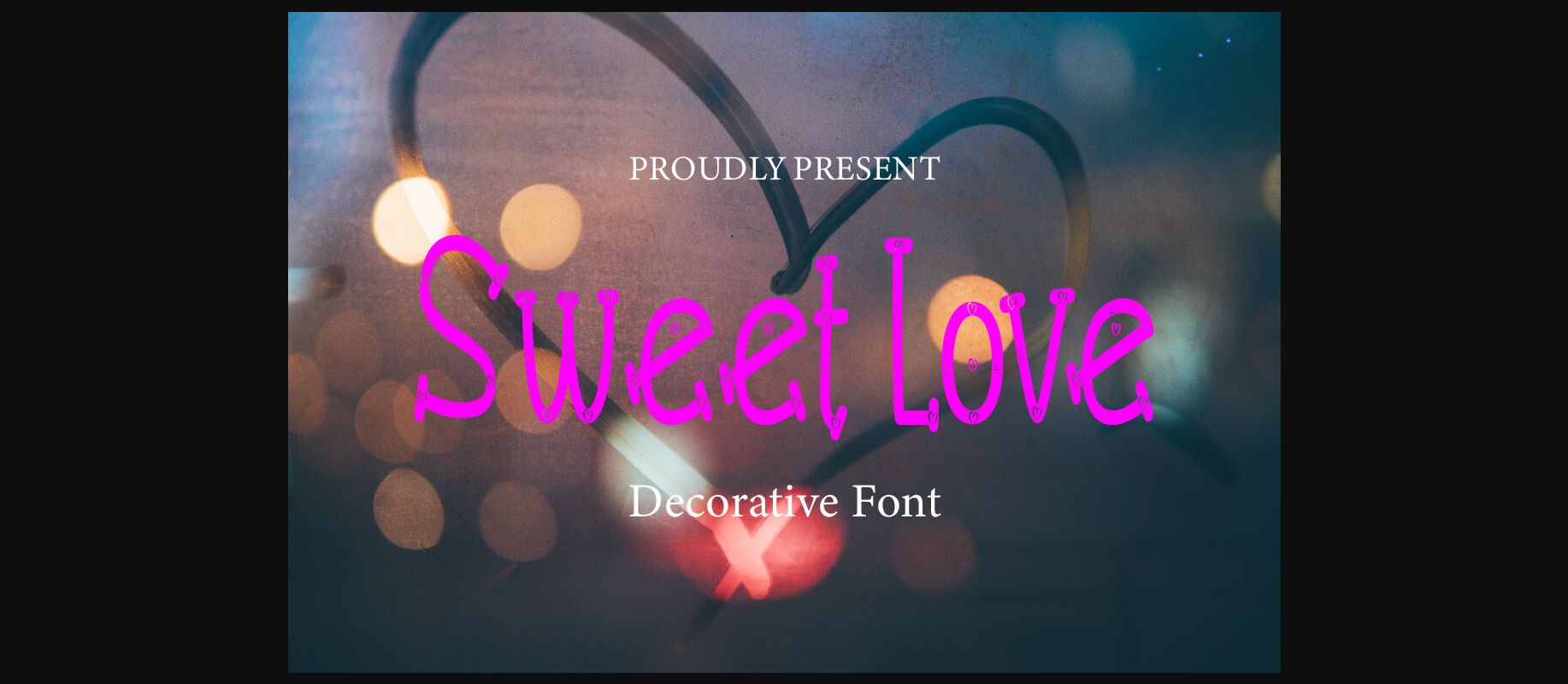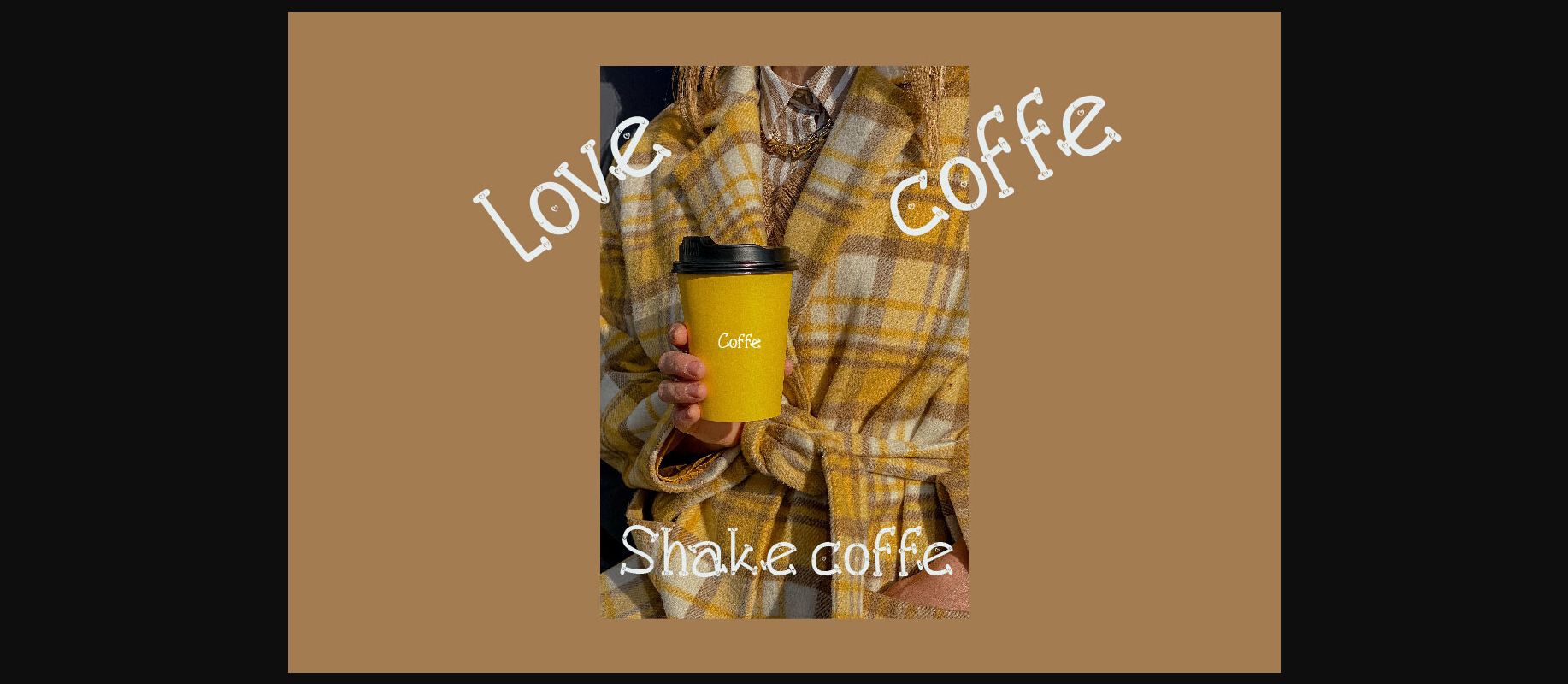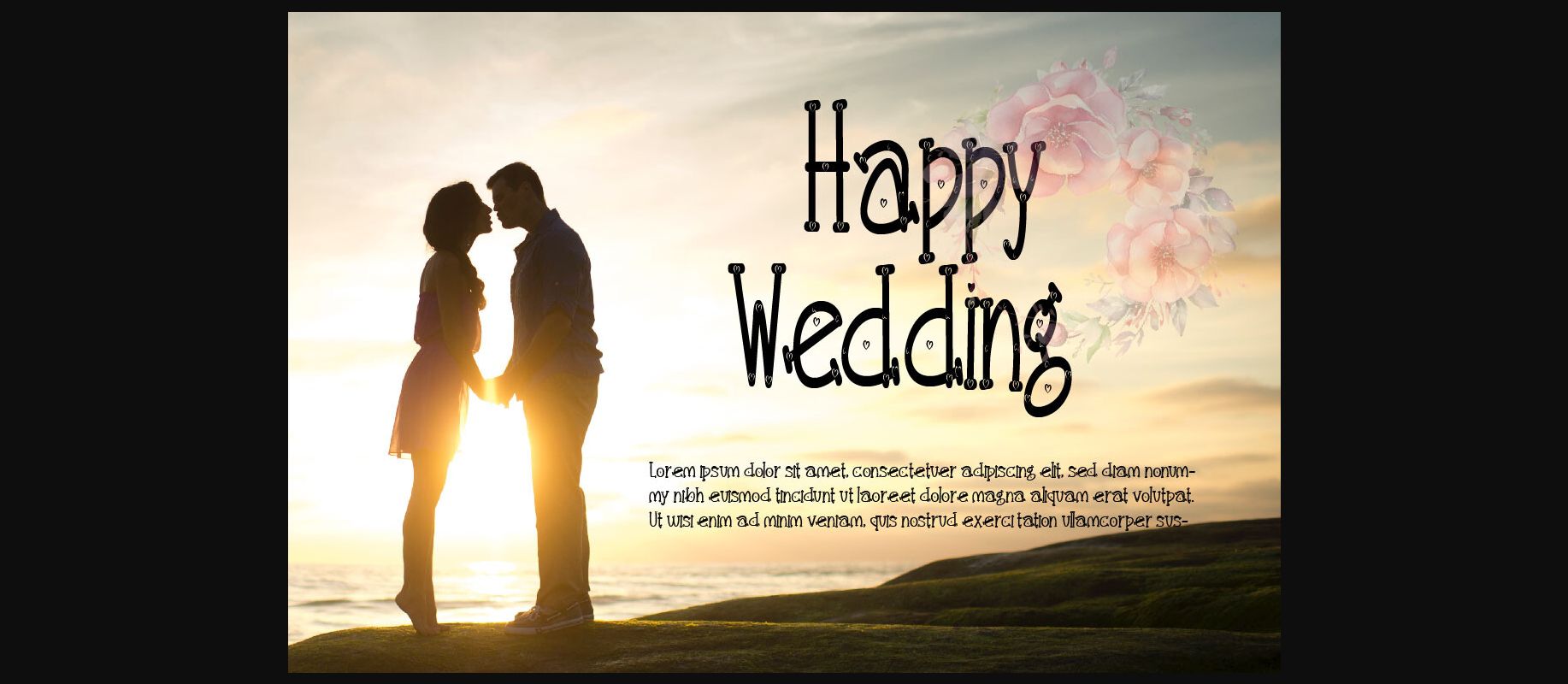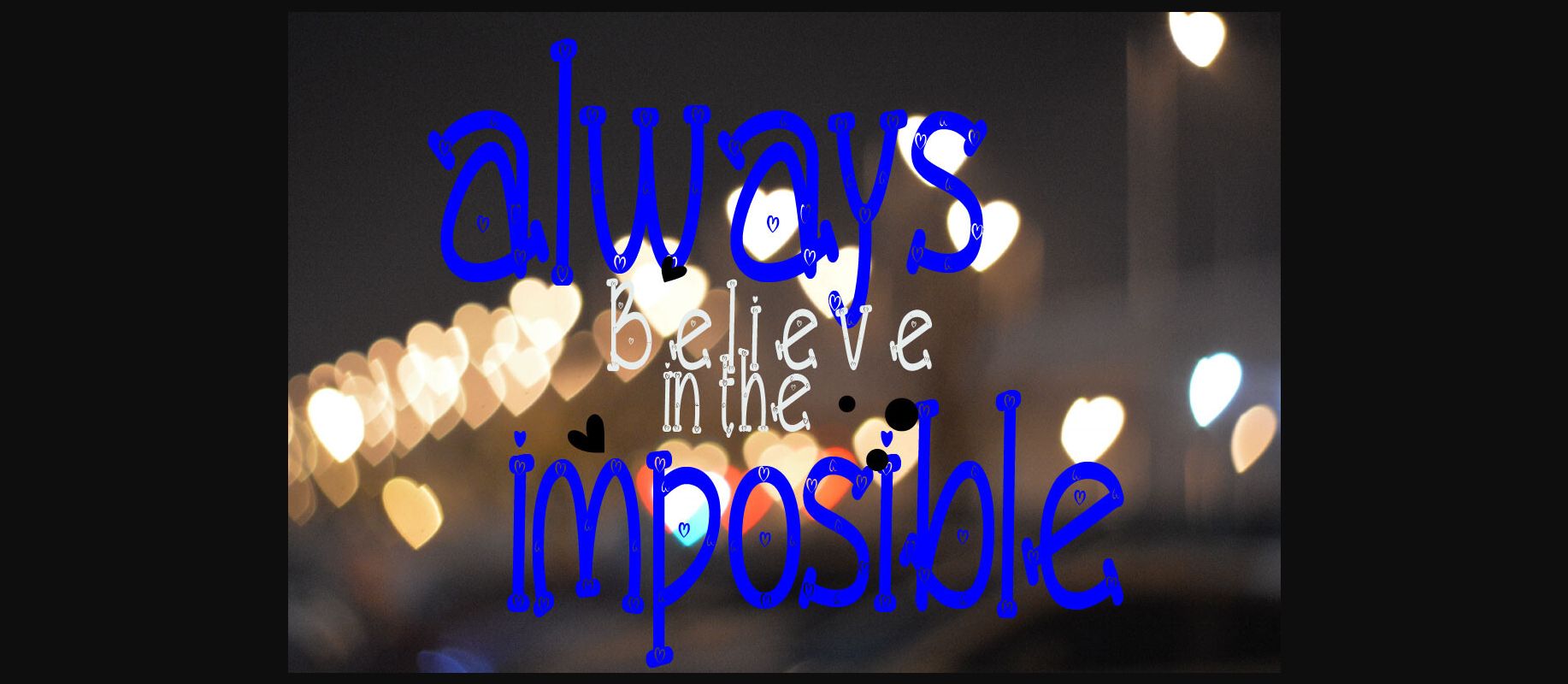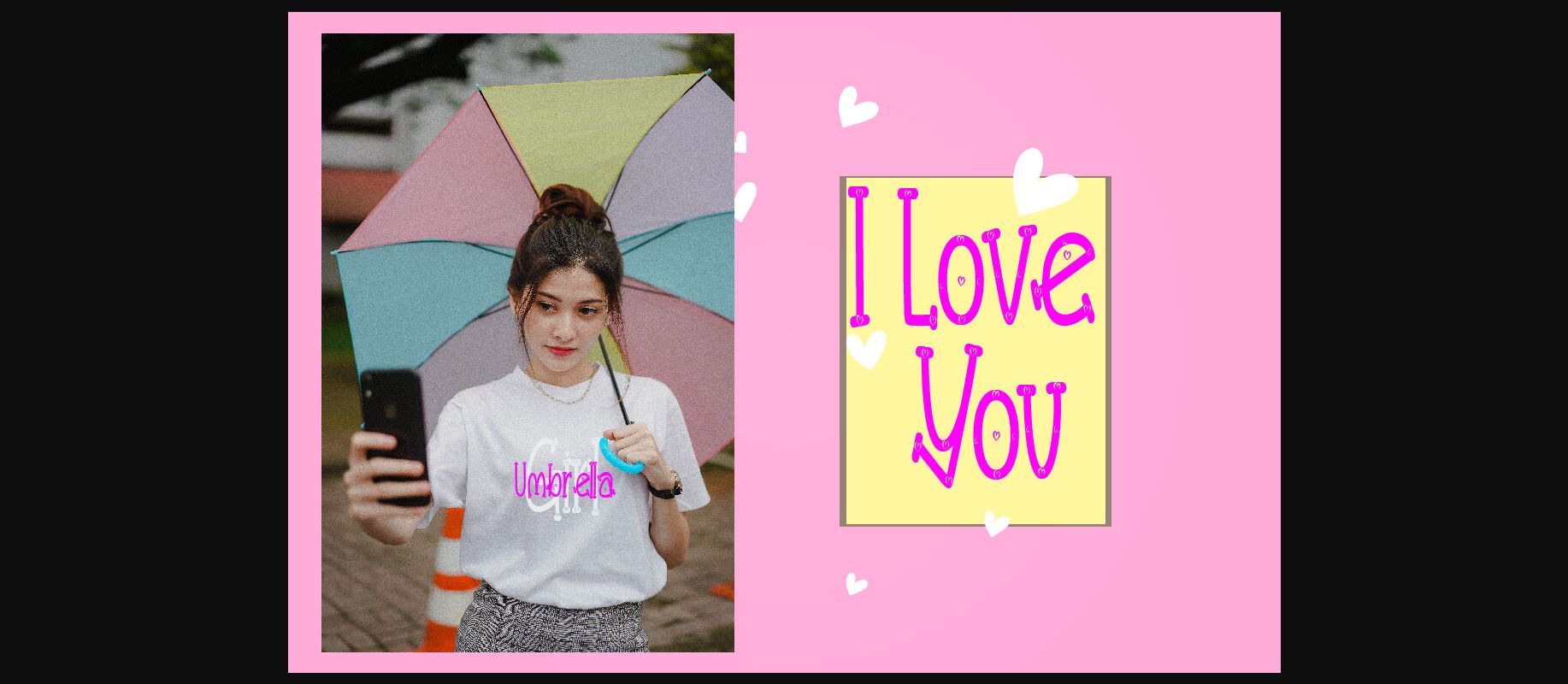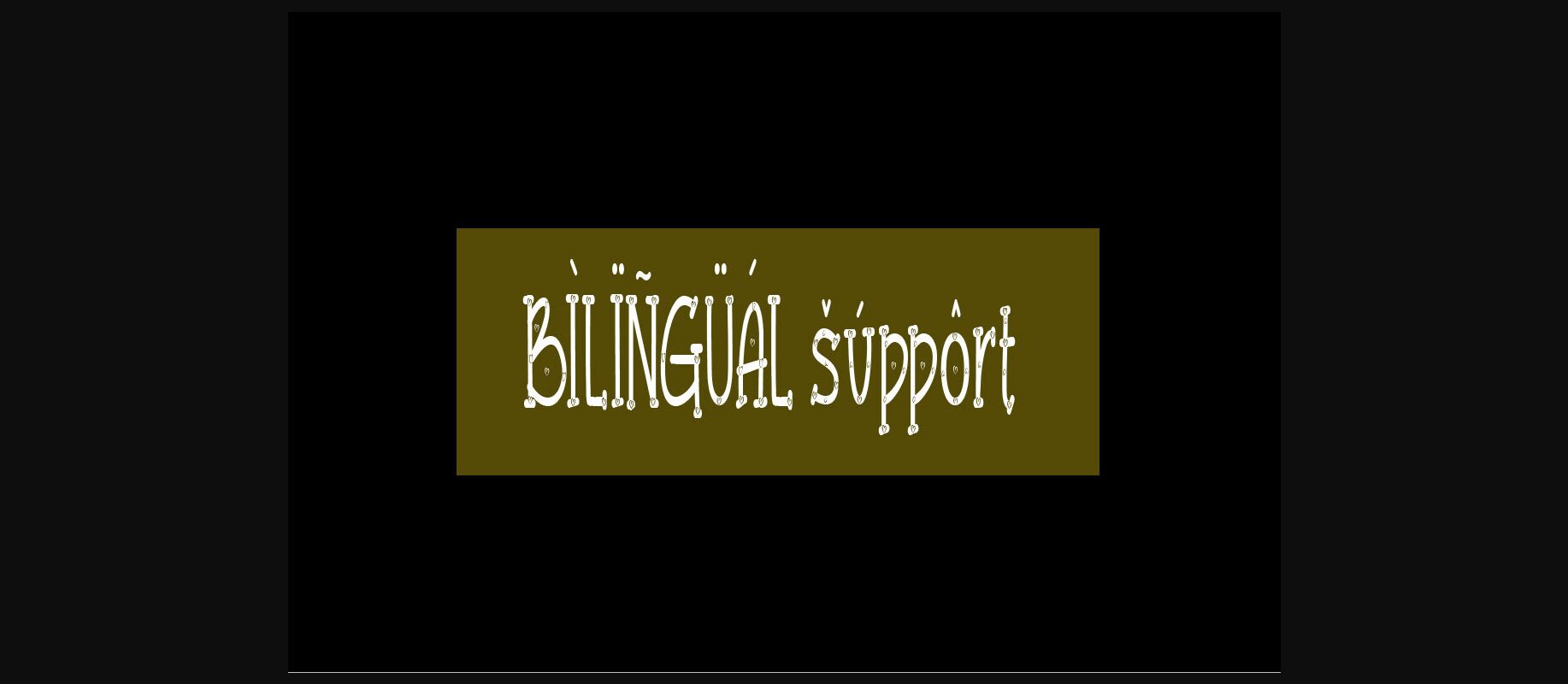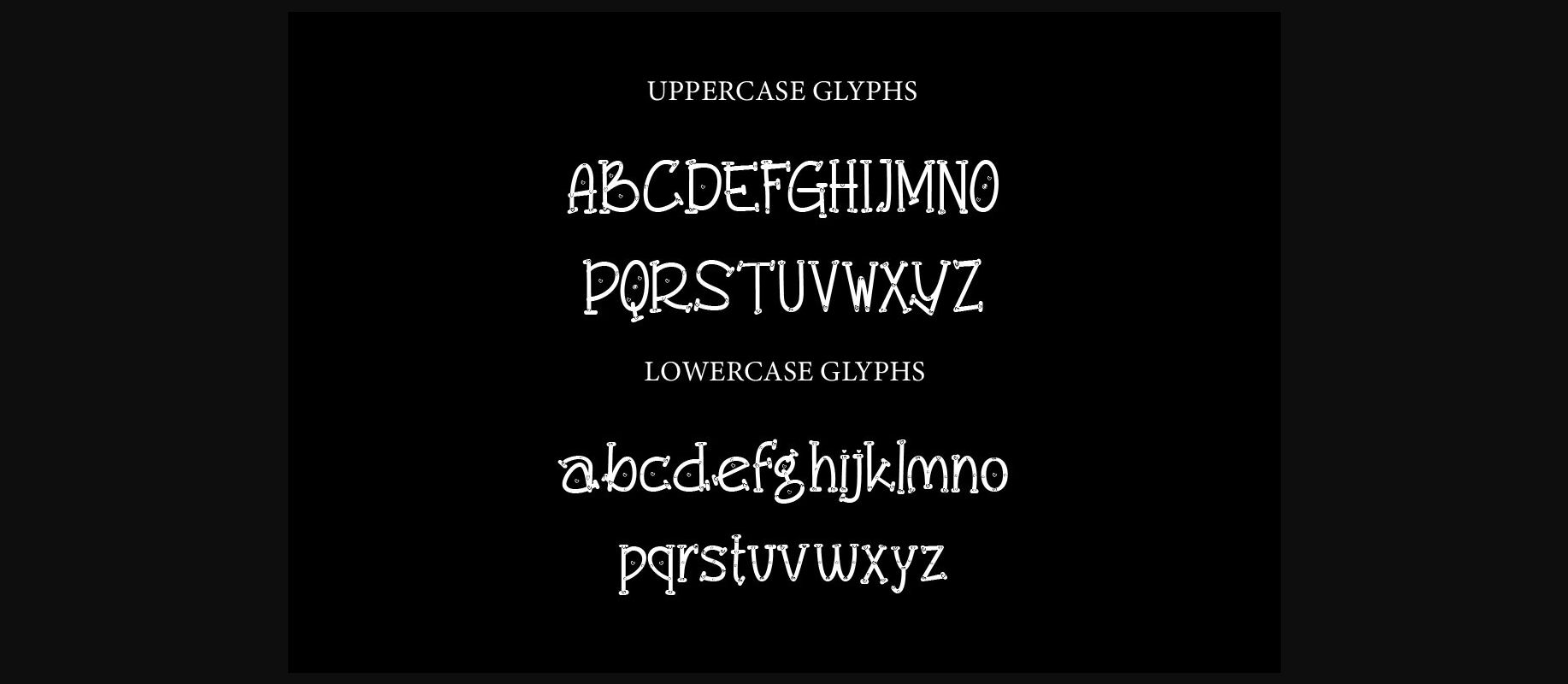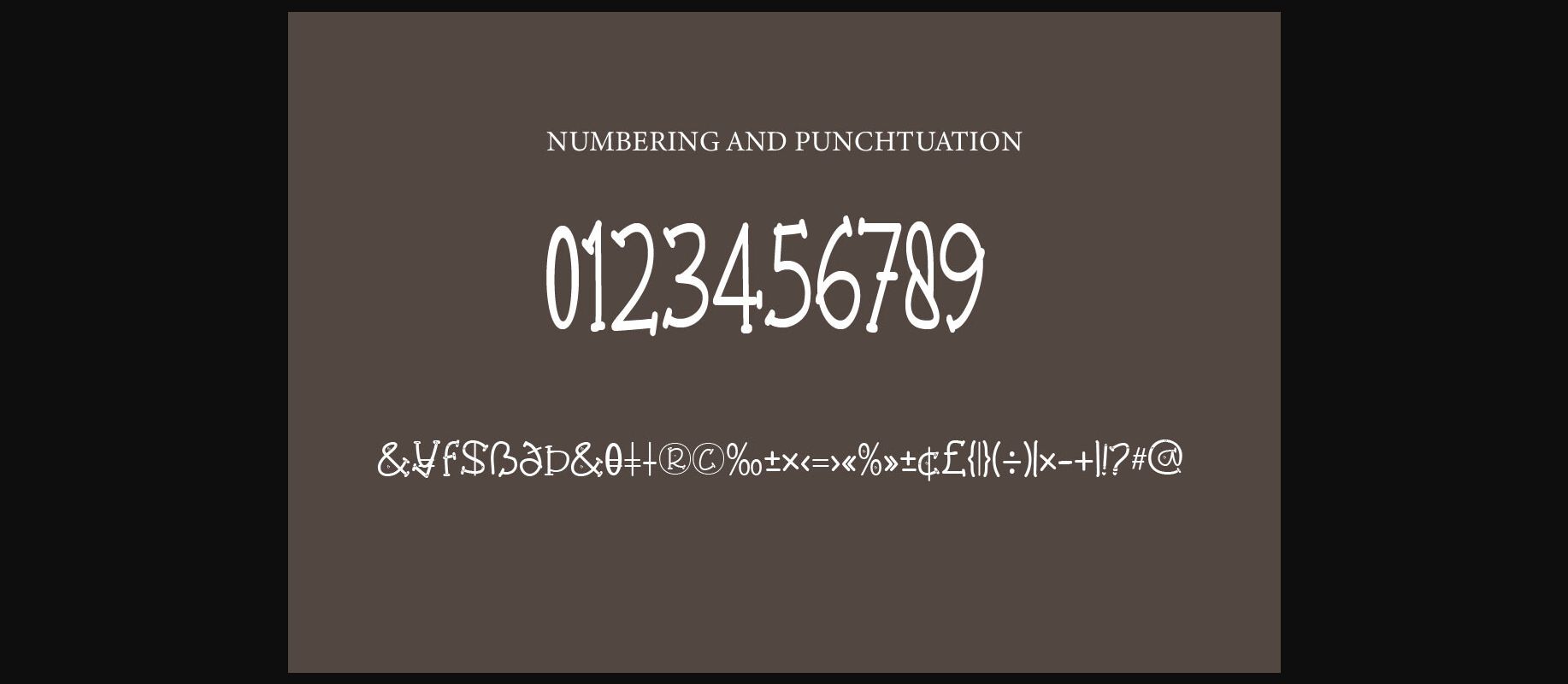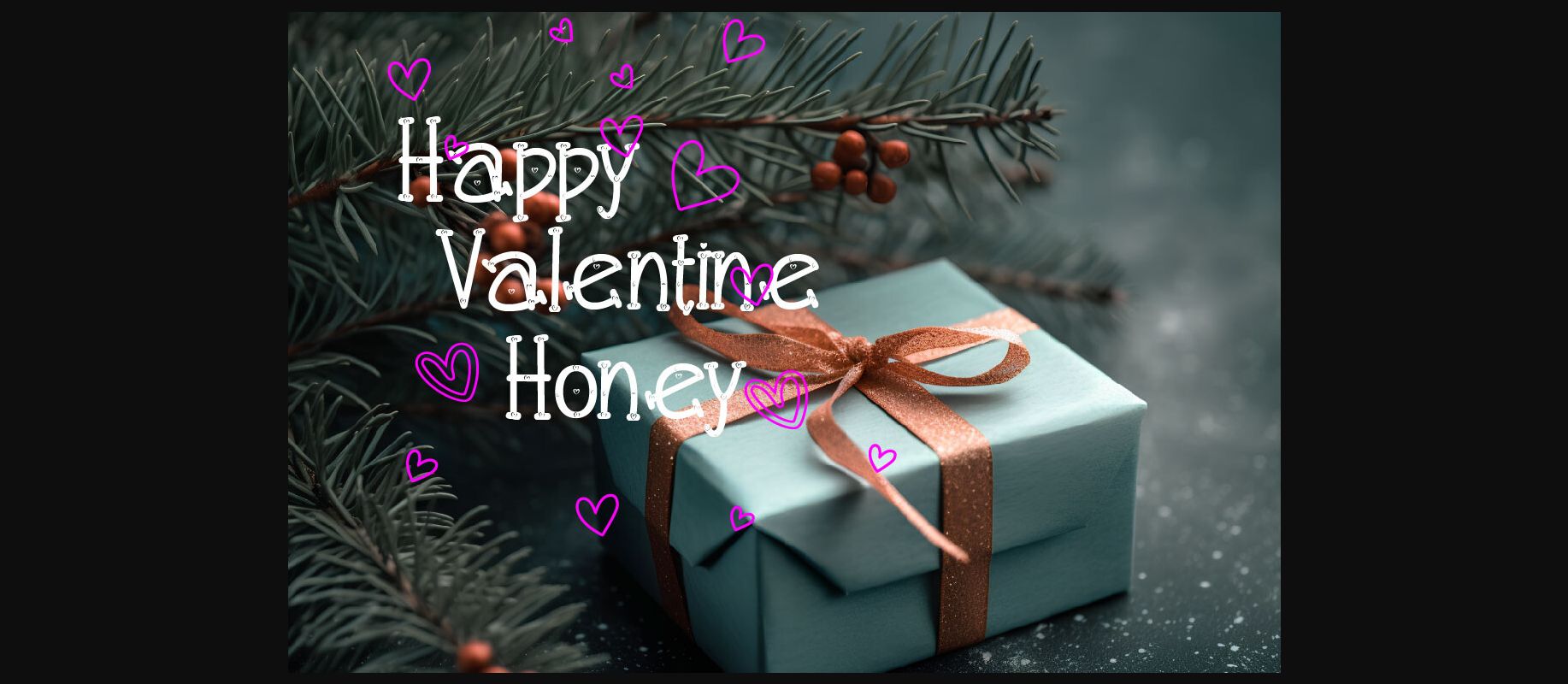
About Sweet Love Font
Introducing Sweet Love font a decorative font with notes style. This is a romantic and sweet display with it has a striking and elegant style and it is perfect for creating lovely designs.
This decorative font will beautifully complement your couple’s Valentine’s Cards, t-shirts, invitations, book covers, posters, etc.